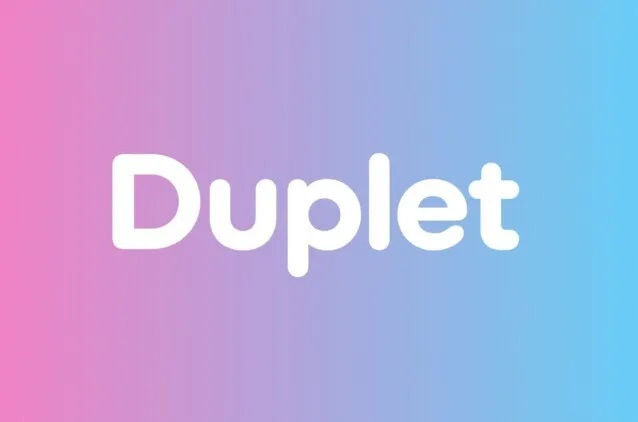
Duplet Rounded is the sister product to Duplet font family and it contains rounded appearances of the originally existing shapes. These are the typefaces of today and tomorrow, and the sophisticated style of this typography perfectly fits the suffered serifs of Iwona’s movie. For instance, the fonts used in general websites, from the headlines to the messages and even logos of several companies represented in geometrically increased or diminished size or letters.
In Duplet Rounded, all the programs have been modified in a way that all the stroke terminals have a smooth curve at the end. That design gives a warmth to the typeface which will take on a very friendly characteristic at the end portions. Due to the fact that it belongs to the Duplet superfamily, it can be used in combination with other types of fonts from this family, namely, Duplet Open and Duplet. Every of them comes in seven styles: Thin, Light, Regular, Bold, Heavy, Extra Bold, and black with italic versions for each of the series.
The fonts range is complete set of 452 glyphs encompassing all the European languages written with Latin script. Since the Duplet Rounded fonts are geometric, the round characters and round-parts of letters appear in the form of circles or circles slanted in the manner you see in the italics. As in many present-day typefaces, the lettering of Duplet Rounded is rather low-contrast and has rather equal stoke width.
Duplet Rounded Sans Serif Font Family